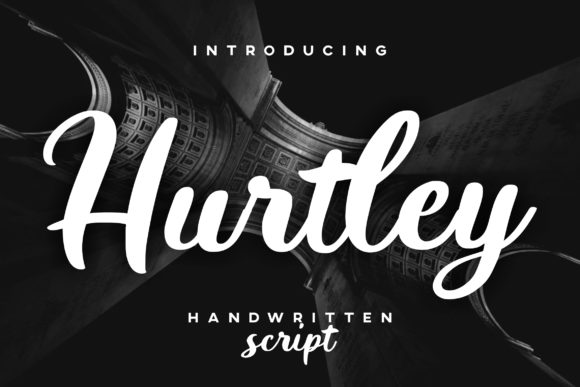
Hurtley Font is a magnificent script font that exudes a tantalizing blend of sophistication and charm. Its meticulously crafted characters dance across the page, evoking the heartfelt emotions of a handwritten letter.
Immerse yourself in a world of endless possibilities as Hurtley Font transforms your designs. From heartfelt wedding invitations to heartfelt thank you cards, each creation becomes a testament to your creativity. Its graceful strokes lend an air of elegance to logos and business cards, leaving an unforgettable impression.
Every letter, every curve of Hurtley Font whispers a tale of love, gratitude, and heartfelt expression. Let your designs blossom with the enchanting beauty of Hurtley Font and captivate your audience with its timeless allure.